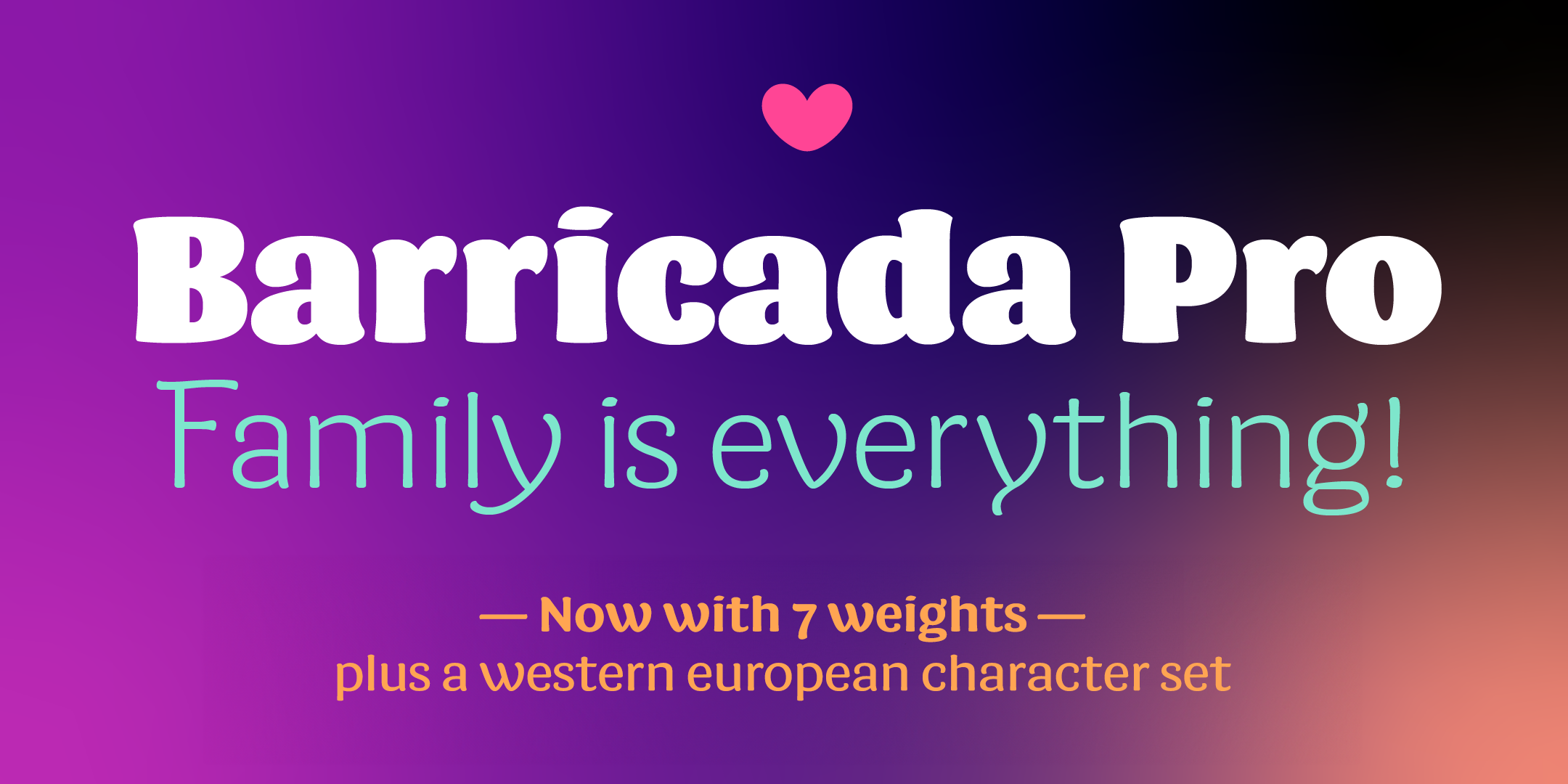
Barricada Pro Font is perfect for bold political campaign materials, revolutionary movement graphics, protest banner designs, activist organization branding, resistance movement posters, social justice communications, powerful editorial headlines, documentary film titles, civil rights materials, and impactful social change campaigns that require uncompromising strength and defiant determination.
This font is exciting because it embodies the unwavering spirit of resistance and social justice with bold, fortified letterforms that stand like barricades against injustice, creating an instantly recognizable symbol of determination and collective action. Barricada Pro Font features strong geometric construction and defensive proportions that reflect the protective strength and unified resistance essential for movements that fight for equality and social change.
Barricada Pro Font family includes Regular, Bold, Black, Fortress, Resistance, Solidarity, Justice, and Movement versions, plus activist symbols, protest ornaments, resistance icons, and solidarity design elements that enhance the powerful movement aesthetic and provide comprehensive solutions for social justice and activist applications.
For activist and social justice design projects, Barricada Pro Font Free Download delivers unmatched strength and movement credibility. The font's fortified letterforms and resistance character make it perfect for activist organizations, social justice campaigns, and movement leaders seeking to communicate determination, unity, and unwavering commitment to change. Its powerful design appeals to supporters who stand for justice and equality. The character set includes movement symbols and solidarity markers that reflect activist community standards. Professional designers appreciate its ability to convey both authentic resistance and professional impact while maintaining excellent readability across protest materials, activist communications, and social justice campaigns, making it essential for organizations that want to project the unbreakable strength and unified determination that defines successful social movements and inspires lasting change for justice and equality.